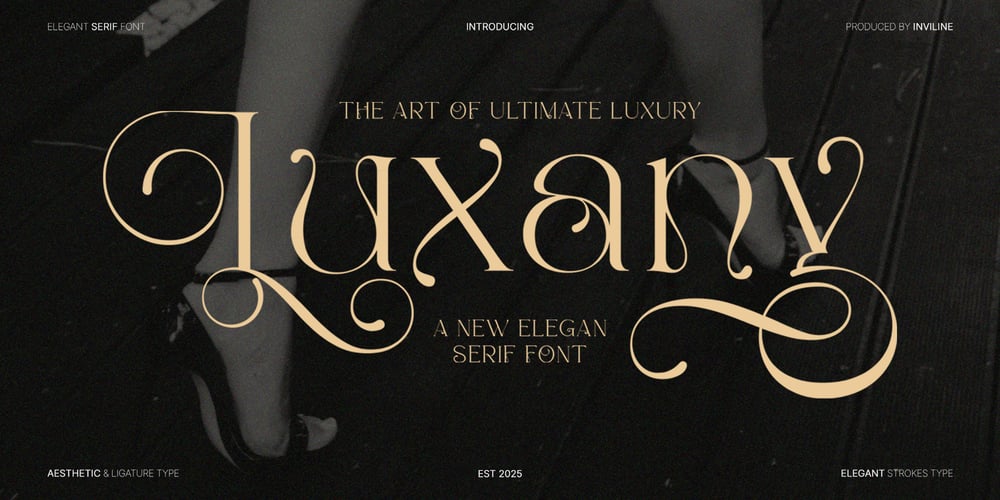
Luxany Display Pro Font Family was designed by Virgiawan Listanto and published by Inviline. Luxany Display Pro contains 1 styles and family package options. Luxany is a newly introduced elegant serif font. Its design emphasizes aesthetics and ligatures, featuring refined and elegant strokes. This font is suitable for design needs requiring a luxurious and sophisticated feel, such as premium branding, wedding invitations, or editorial design.